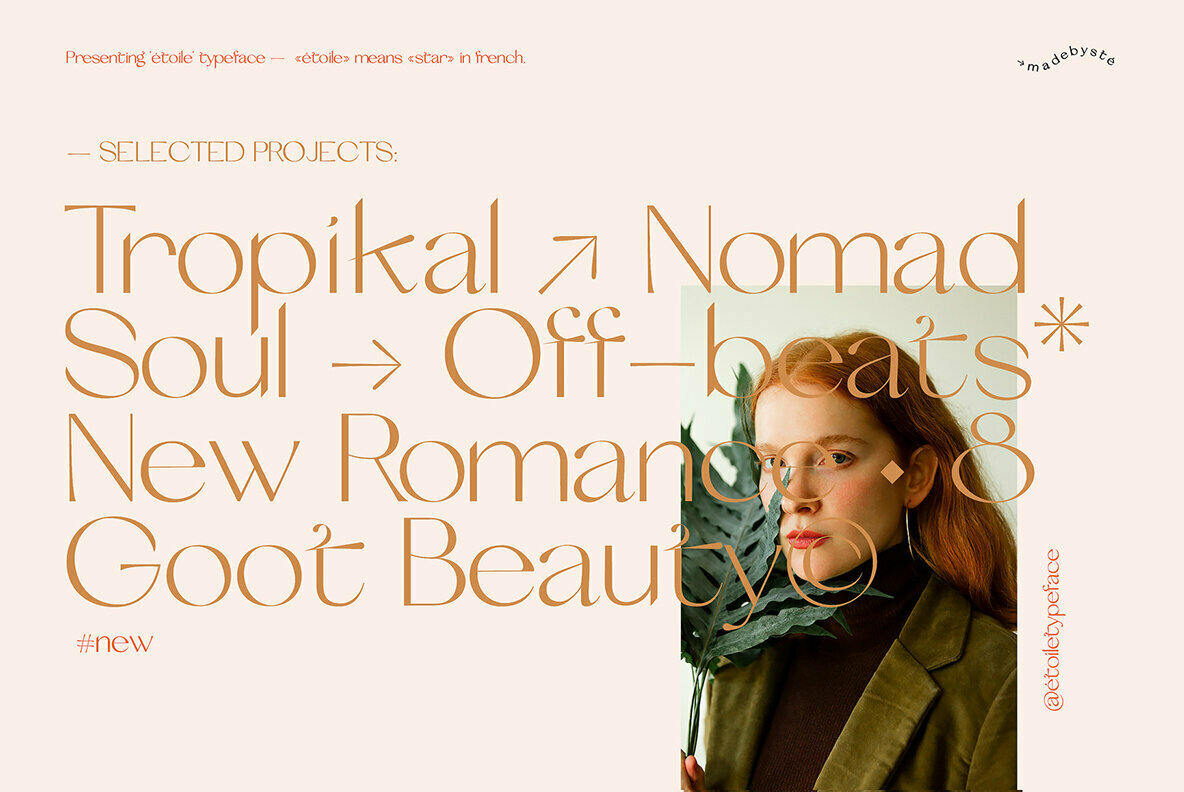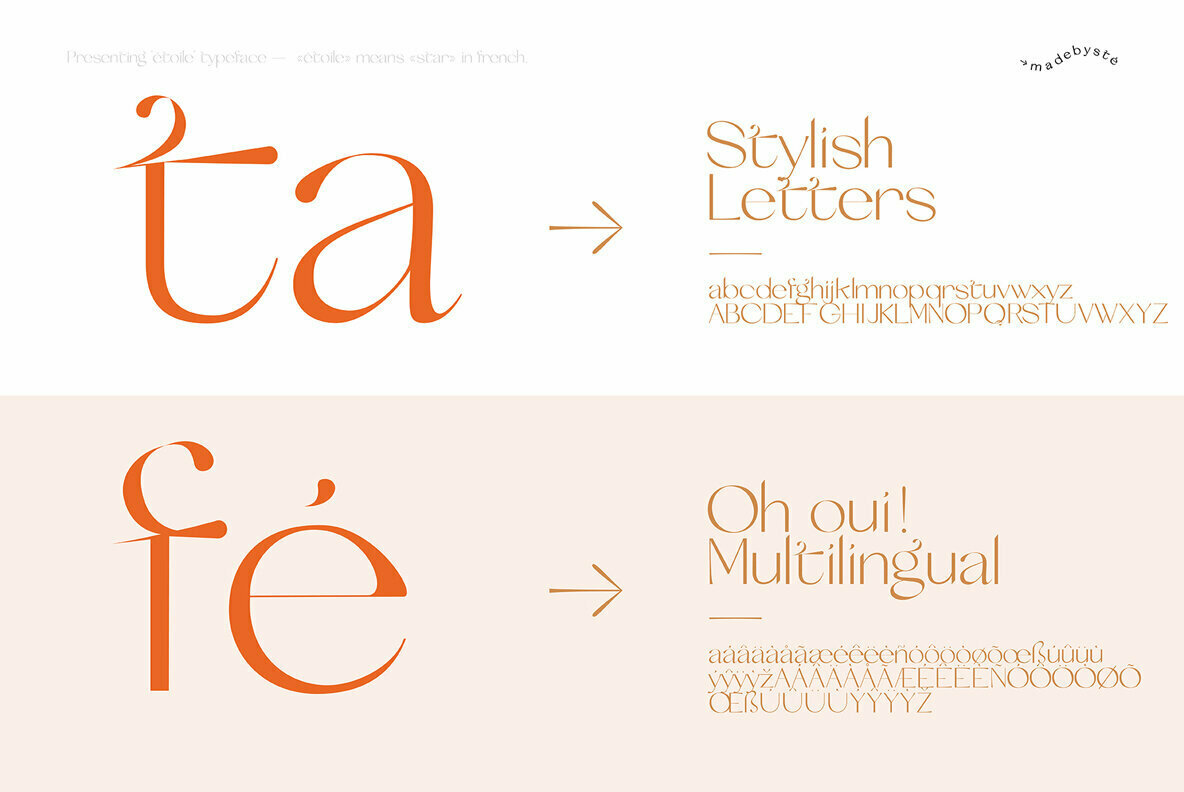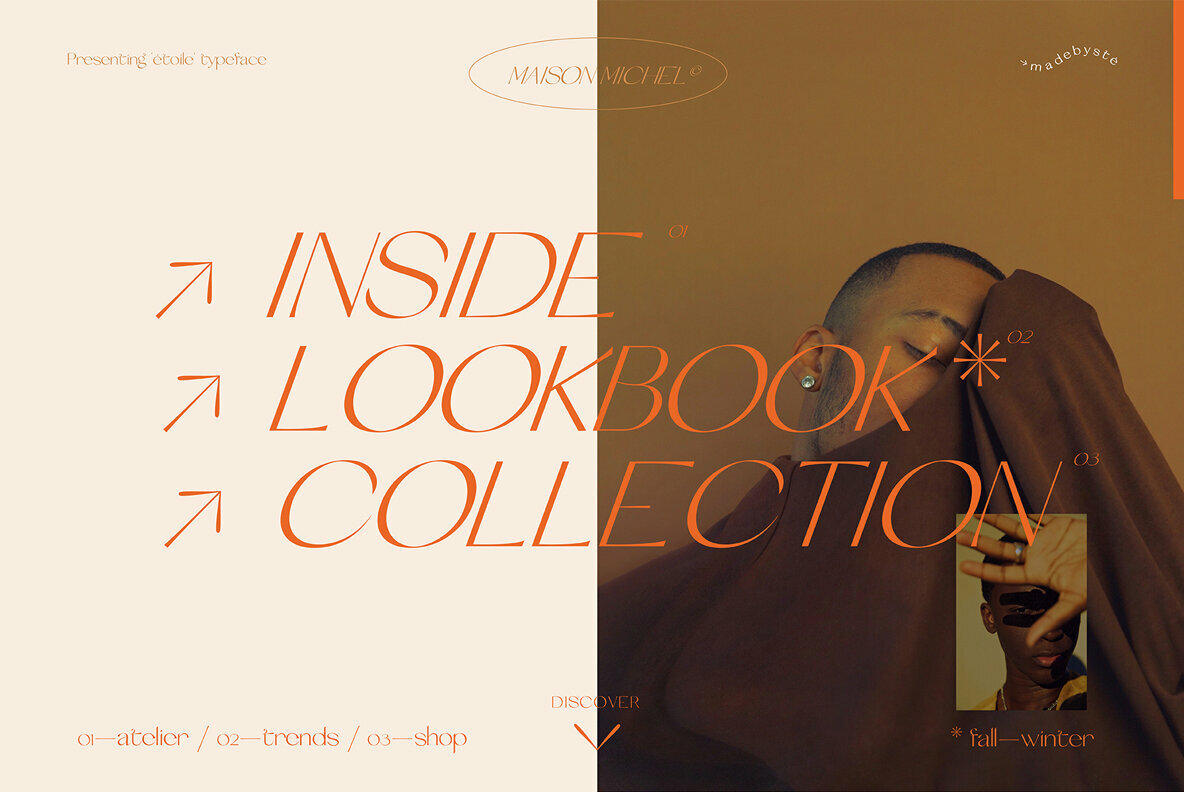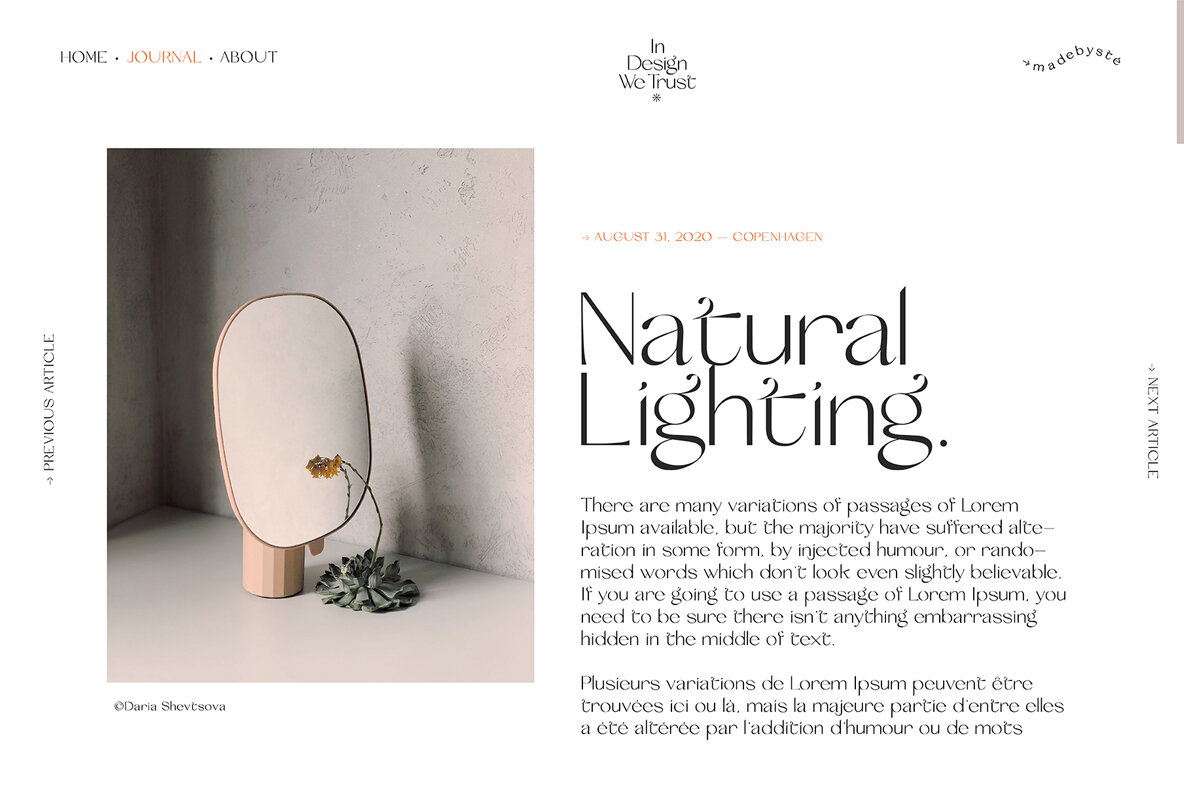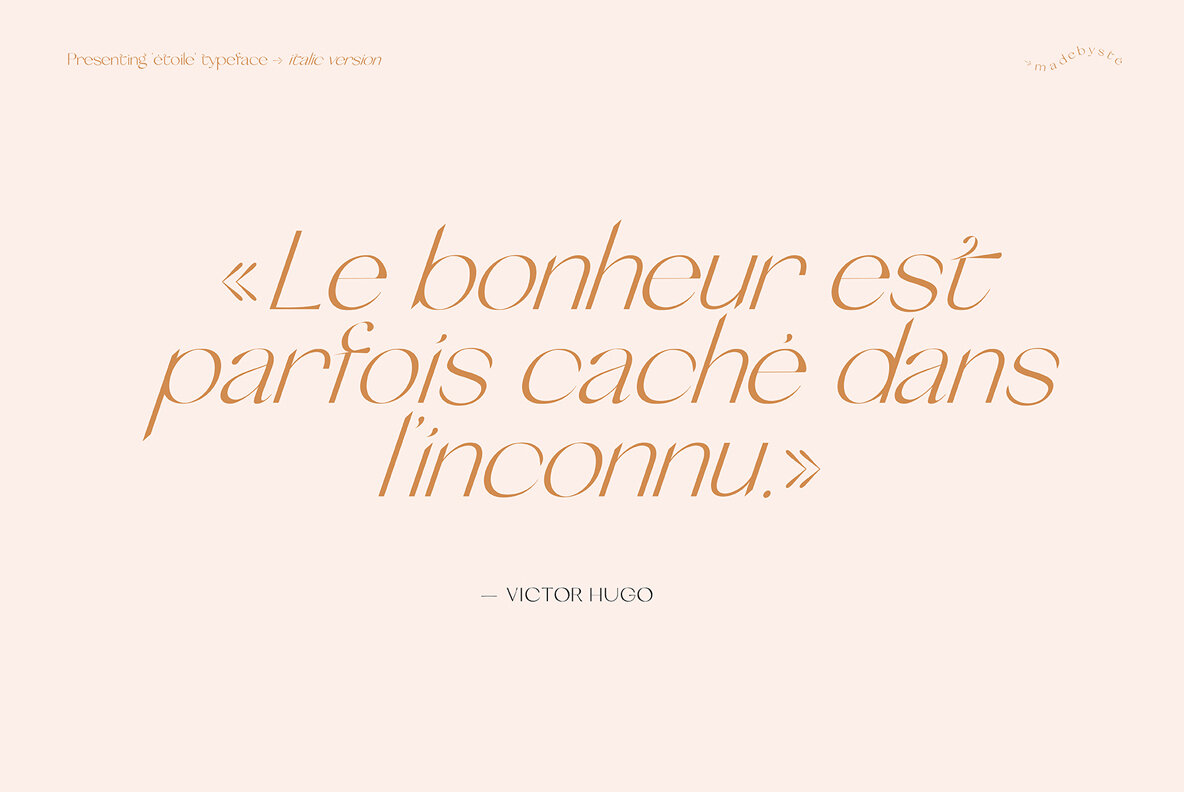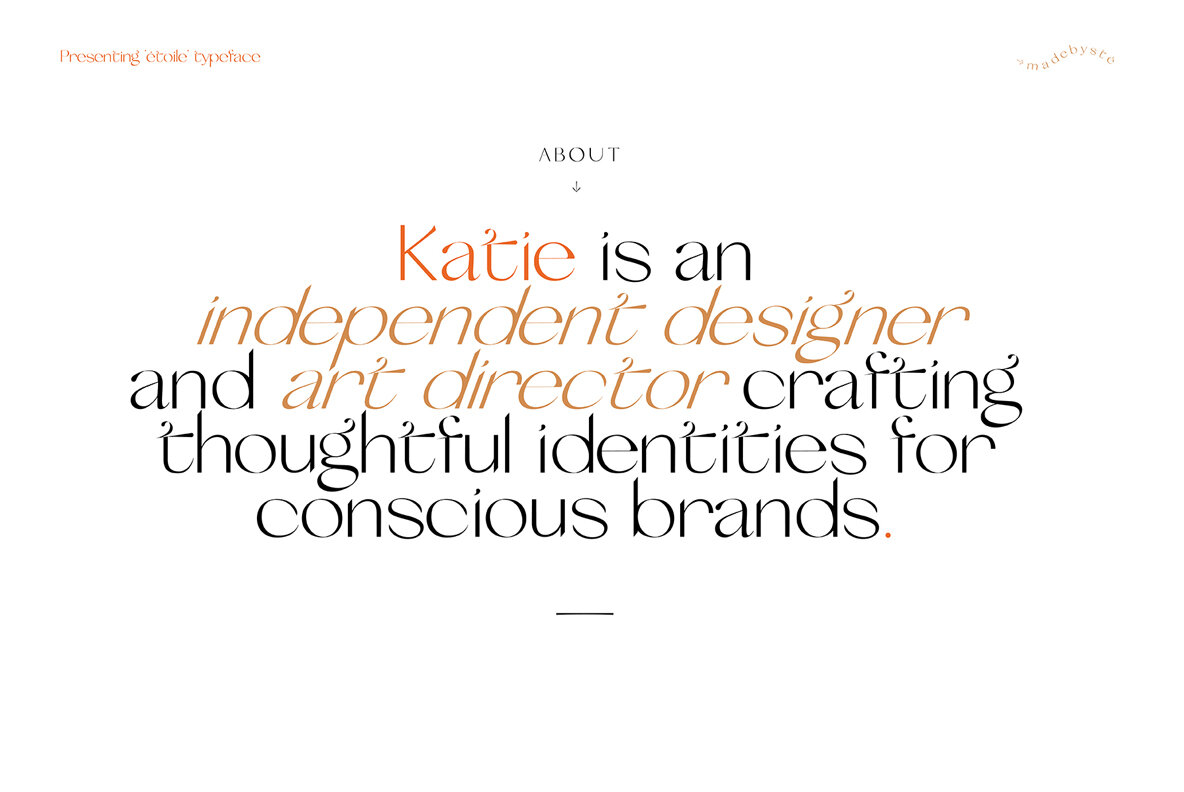
Etoile Font
Etoile typeface is a versatile, modern and classy sans serif font that is really original. It has a unique style especially with the f, the i and the t lowercase letters. It makes it memorable. Give your text a bit of elegance and sweetness. Etoile gives also a wow effect to big titles, headlines. Use it big to enjoy it’s full potential.This font is ideal for design, fashion, creative branding, editorial design and web design.